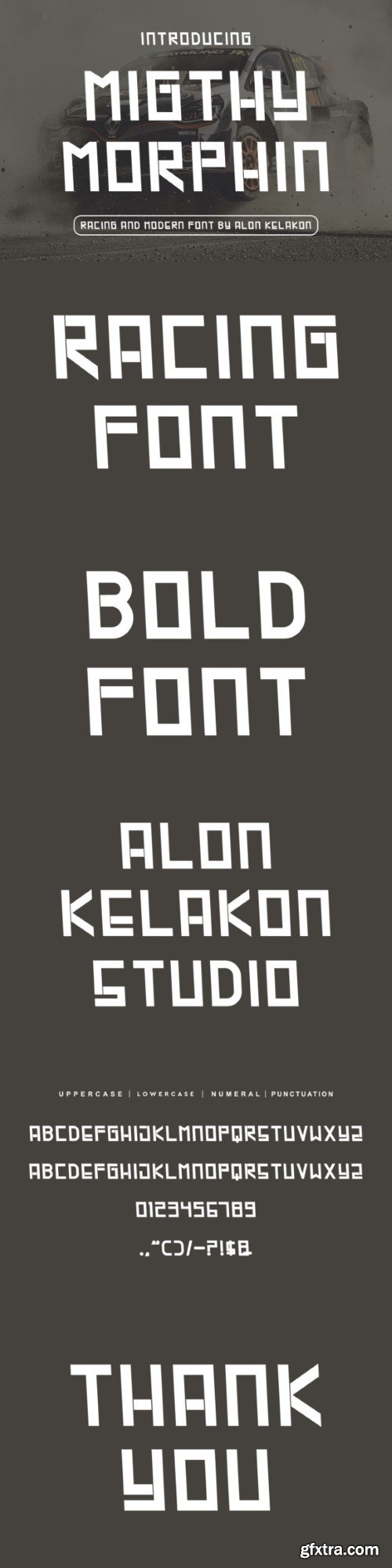
Migthy Morphin Font is unique . Ready to use for your design like labeling, clothing, movie sceen, poster, movie title, gigs, album covers, logos, and much more.